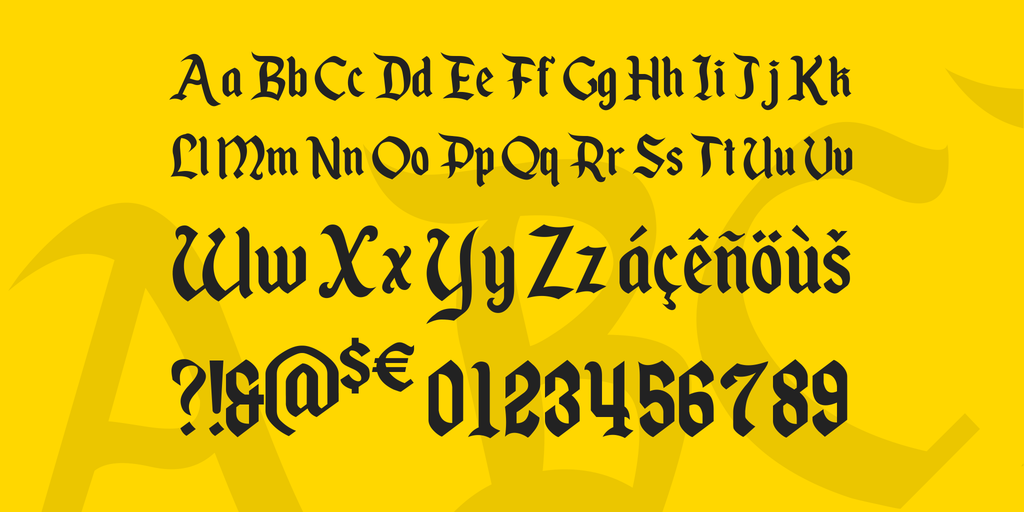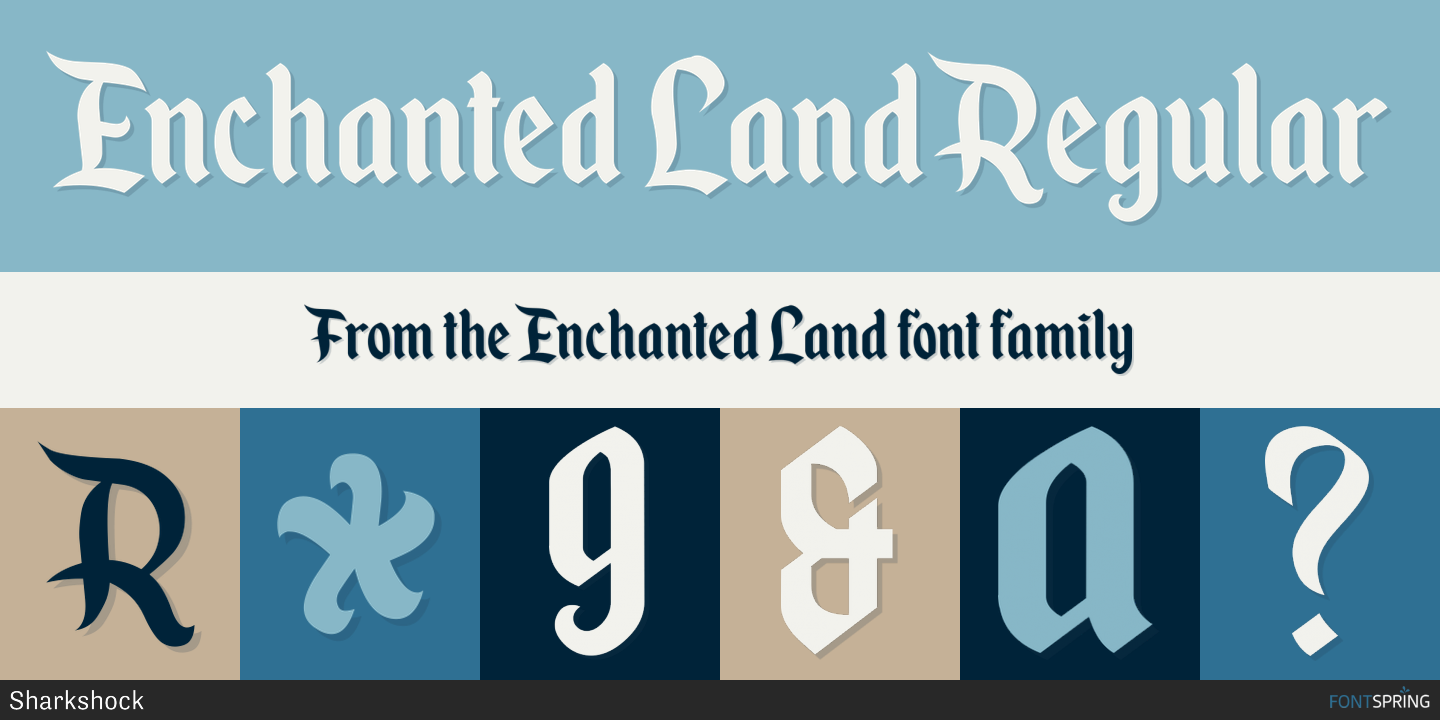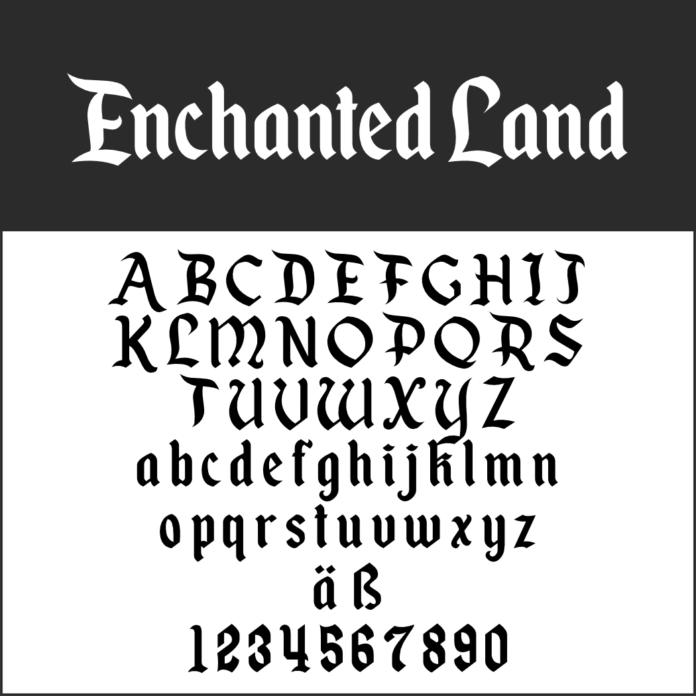
Enchanted Land Font Generator . Archive of freely downloadable fonts. This display font captures the. German blackletter, old english, uncial, victorian, it’s in. This font like my others are free for personal use only as long as this readme file stays. Enchanted land font where fun has no age limit! This display font features a clean glyph set with many european characters and diacritic support for extended latin. Every font is free to download! Use enchanted land for a children's project, book title, or anywhere you'd like a little magic. Click to find the best 186 free fonts in the magic style. Otf features like kerning, ordinals,. Browse by alphabetical listing, by style, by author or by popularity. This script flirts with several old world styles but seeks only to borrow elements rather than completely emulate them. Welcome to the enchanted land where fun has no age limit! Use enchanted land for a children's project, book title, or anywhere you'd like a little magic.
Every font is free to download! Otf features like kerning, ordinals,. Click to find the best 186 free fonts in the magic style. Enchanted land font where fun has no age limit! This font like my others are free for personal use only as long as this readme file stays. This display font captures the. This script flirts with several old world styles but seeks only to borrow elements rather than completely emulate them. This display font features a clean glyph set with many european characters and diacritic support for extended latin. German blackletter, old english, uncial, victorian, it’s in. Archive of freely downloadable fonts.
Enchanted Land Font Generator Click to find the best 186 free fonts in the magic style. Welcome to the enchanted land where fun has no age limit! Otf features like kerning, ordinals,. Every font is free to download! This font like my others are free for personal use only as long as this readme file stays. This script flirts with several old world styles but seeks only to borrow elements rather than completely emulate them. This display font captures the. Use enchanted land for a children's project, book title, or anywhere you'd like a little magic. This display font features a clean glyph set with many european characters and diacritic support for extended latin. Browse by alphabetical listing, by style, by author or by popularity. Archive of freely downloadable fonts. German blackletter, old english, uncial, victorian, it’s in. Use enchanted land for a children's project, book title, or anywhere you'd like a little magic. Click to find the best 186 free fonts in the magic style. Enchanted land font where fun has no age limit!
Enchanted Land DS font Enchanted Land Font Generator Otf features like kerning, ordinals,. German blackletter, old english, uncial, victorian, it’s in. Browse by alphabetical listing, by style, by author or by popularity. This font like my others are free for personal use only as long as this readme file stays. Use enchanted land for a children's project, book title, or anywhere you'd like a little magic. Enchanted land. Enchanted Land Font Generator.
Enchanted Land font download Enchanted Land Font Generator Use enchanted land for a children's project, book title, or anywhere you'd like a little magic. This script flirts with several old world styles but seeks only to borrow elements rather than completely emulate them. Browse by alphabetical listing, by style, by author or by popularity. Every font is free to download! Otf features like kerning, ordinals,. Enchanted land font. Enchanted Land Font Generator.
Enchanted Font, Enchanted Svg, Enchanted Font Cricut, Enchanted Font Enchanted Land Font Generator Every font is free to download! This script flirts with several old world styles but seeks only to borrow elements rather than completely emulate them. This font like my others are free for personal use only as long as this readme file stays. Archive of freely downloadable fonts. Enchanted land font where fun has no age limit! Use enchanted land. Enchanted Land Font Generator.
Download free Enchanted Land font Sharkshock Enchanted Land Font Generator German blackletter, old english, uncial, victorian, it’s in. Enchanted land font where fun has no age limit! This display font captures the. Browse by alphabetical listing, by style, by author or by popularity. Use enchanted land for a children's project, book title, or anywhere you'd like a little magic. This script flirts with several old world styles but seeks only. Enchanted Land Font Generator.
Enchanted Land font Font Tr Enchanted Land Font Generator This display font captures the. This font like my others are free for personal use only as long as this readme file stays. Browse by alphabetical listing, by style, by author or by popularity. This script flirts with several old world styles but seeks only to borrow elements rather than completely emulate them. Click to find the best 186 free. Enchanted Land Font Generator.
Enchanted Land DS Font download free Enchanted Land Font Generator Enchanted land font where fun has no age limit! This display font captures the. Otf features like kerning, ordinals,. This font like my others are free for personal use only as long as this readme file stays. Archive of freely downloadable fonts. This display font features a clean glyph set with many european characters and diacritic support for extended latin.. Enchanted Land Font Generator.
Download free Enchanted Land font, free Enchanted_Land.otf Regular font for Windows Enchanted Land Font Generator Click to find the best 186 free fonts in the magic style. This script flirts with several old world styles but seeks only to borrow elements rather than completely emulate them. Otf features like kerning, ordinals,. Welcome to the enchanted land where fun has no age limit! Every font is free to download! This display font captures the. Browse by. Enchanted Land Font Generator.
Enchanted Land Font · 1001 Fonts Enchanted Land Font Generator This font like my others are free for personal use only as long as this readme file stays. This script flirts with several old world styles but seeks only to borrow elements rather than completely emulate them. Archive of freely downloadable fonts. Every font is free to download! Enchanted land font where fun has no age limit! Welcome to the. Enchanted Land Font Generator.
DisneySchriftart DownloadFonts Enchanted Land Font Generator German blackletter, old english, uncial, victorian, it’s in. Welcome to the enchanted land where fun has no age limit! This display font features a clean glyph set with many european characters and diacritic support for extended latin. Every font is free to download! Use enchanted land for a children's project, book title, or anywhere you'd like a little magic. Otf. Enchanted Land Font Generator.